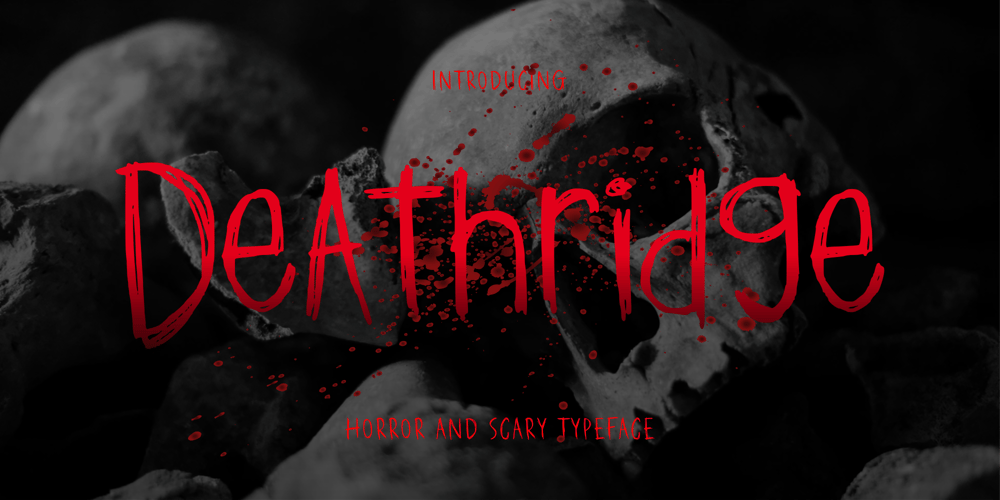
Deathridge Font Family was designed by Fachrizal Yusuf and published by Allouse Studio. Deathridge contains 1 styles and family package options. Proudly Presenting, Deathridge a Horror and Scary Typeface.Deathridge is perfect for product packaging, branding project, megazine, social media, wedding, or just used to express words above the background.Deathridge also come with Multi-Lingual Support.Enjoy the font, feel free to comment or feedback, send me PM or email. Thank You!